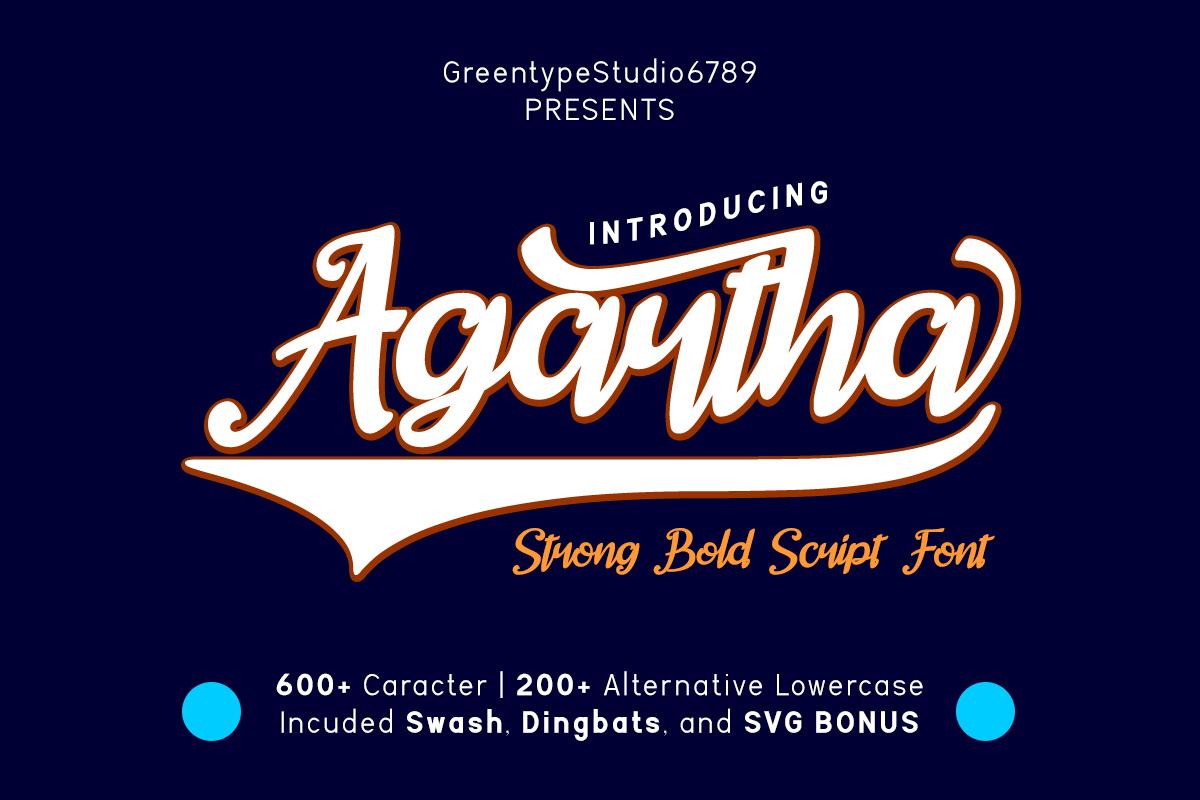
Agartha Font Description
Agartha is an elegant and timeless handwritten font. It is PUA encoded which means you can access all of the glyphs and swashes with ease! It features a varying baseline, smooth lines, gorgeous glyphs and stunning alternates. Fall in love with its incredibly versatile style and use it to create spectacular designs!